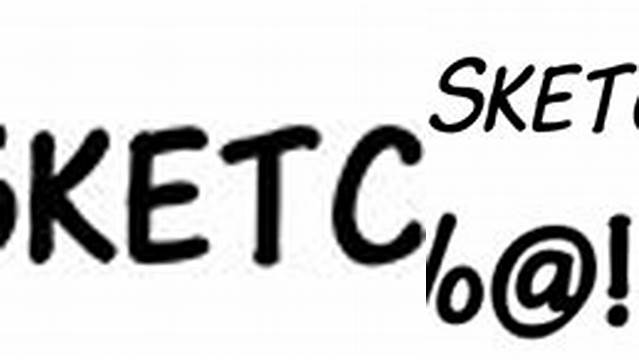
Norb Sketch Bold Font Free Download: Your Design Guide
Norb Sketch Bold Font: Your Ultimate Guide to Free Download and Design Applications
Hey design enthusiasts! Are you on the hunt for a font that screams boldness and creativity? Look no further than the Norb Sketch Bold font! It's a fantastic choice for anyone looking to add a touch of edgy flair to their projects. In this guide, we'll dive deep into everything you need to know about Norb Sketch Bold, from how to snag a free download to where you can use it to make your designs pop. Get ready to unleash your inner artist! We're going to explore the awesome world of Norb Sketch Bold, the font that's making waves in the design community. If you're a designer, a blogger, or just someone who loves to get creative, then you're in the right place. I'm going to cover everything from how to get this awesome font for free to how to use it to make your designs stand out. So, grab a coffee, sit back, and let's get started on this fontastic journey!
Why Norb Sketch Bold Font is a Designer's Best Friend
Okay, let's talk about why the Norb Sketch Bold font is such a hit, shall we? This font isn't just another typeface; it's a statement. The bold, sketchy design gives your projects an instant edge. It's perfect for grabbing attention, whether you're designing a logo, a website header, or social media graphics. The Norb Sketch Bold font is more than just a typeface; it's a visual experience. Its bold, sketchy style gives any design an instant edge, making it ideal for grabbing attention. Imagine a logo that instantly communicates energy and creativity. Or a website header that immediately draws visitors in. The Norb Sketch Bold font makes all of this possible. It's particularly effective for projects where you want to convey a sense of rawness, authenticity, or a playful vibe. Unlike clean, minimalist fonts, Norb Sketch Bold brings a hand-drawn feel that humanizes your designs and connects with your audience on a more personal level. This font is perfect for any project that wants to stand out, from branding to marketing materials. Plus, it's incredibly versatile. You can use it in a variety of contexts, including posters, websites, and merchandise. Its bold, eye-catching appearance ensures your message is not just seen, but remembered. The font's unique aesthetic makes your work look professional and original. The font's inherent character adds a unique touch that distinguishes your designs. And if you're looking to create marketing materials, the Norb Sketch Bold font is your secret weapon. It commands attention and makes your message stick. The Norb Sketch Bold font is also a great choice if you're targeting a younger audience. Its playful, energetic style is very appealing to them. Norb Sketch Bold offers a perfect blend of artistic flair and readability. It's a testament to how the right typeface can elevate your work.
When it comes to design, the right font can be a game-changer, and Norb Sketch Bold is just that. The uniqueness of the font isn't just in its design; it's in its versatility. This font can adapt to a wide array of design projects, from website headers to social media graphics. This kind of adaptability ensures that your design remains relevant and engaging across platforms. The Norb Sketch Bold font is not just about looks; it's about functionality. Its bold design isn't just for aesthetic appeal, it also ensures that your text is easily readable, even from a distance. This makes it a great choice for headlines, posters, and any design where you want to make a strong visual impact. It's a font that commands attention and is perfect for any project that needs to stand out from the crowd. The sketchy design gives off a sense of creativity and artistic flair. The Norb Sketch Bold font's bold nature and unique style make it a favorite among designers seeking to add a touch of originality to their work. It's more than just a font; it's a tool for creative expression. It can elevate your work to the next level by turning the ordinary into the extraordinary. It's a way to add personality, expressiveness, and visual interest to your projects. The use of Norb Sketch Bold instantly adds a handcrafted, authentic feel to your projects, making them more relatable and memorable.
Final Thoughts: Unleash Your Creativity with Norb Sketch Bold
So, there you have it! The Norb Sketch Bold font is a fantastic choice for adding a touch of creativity and personality to your designs. With its bold, sketchy design and versatility, it's a great asset for any designer. Remember to always download fonts from trustworthy sources and respect the license terms. Now, go out there and start creating! You can use Norb Sketch Bold to transform your designs into something truly special. So, why wait? Go out there and start creating designs that stand out. Happy designing, everyone!